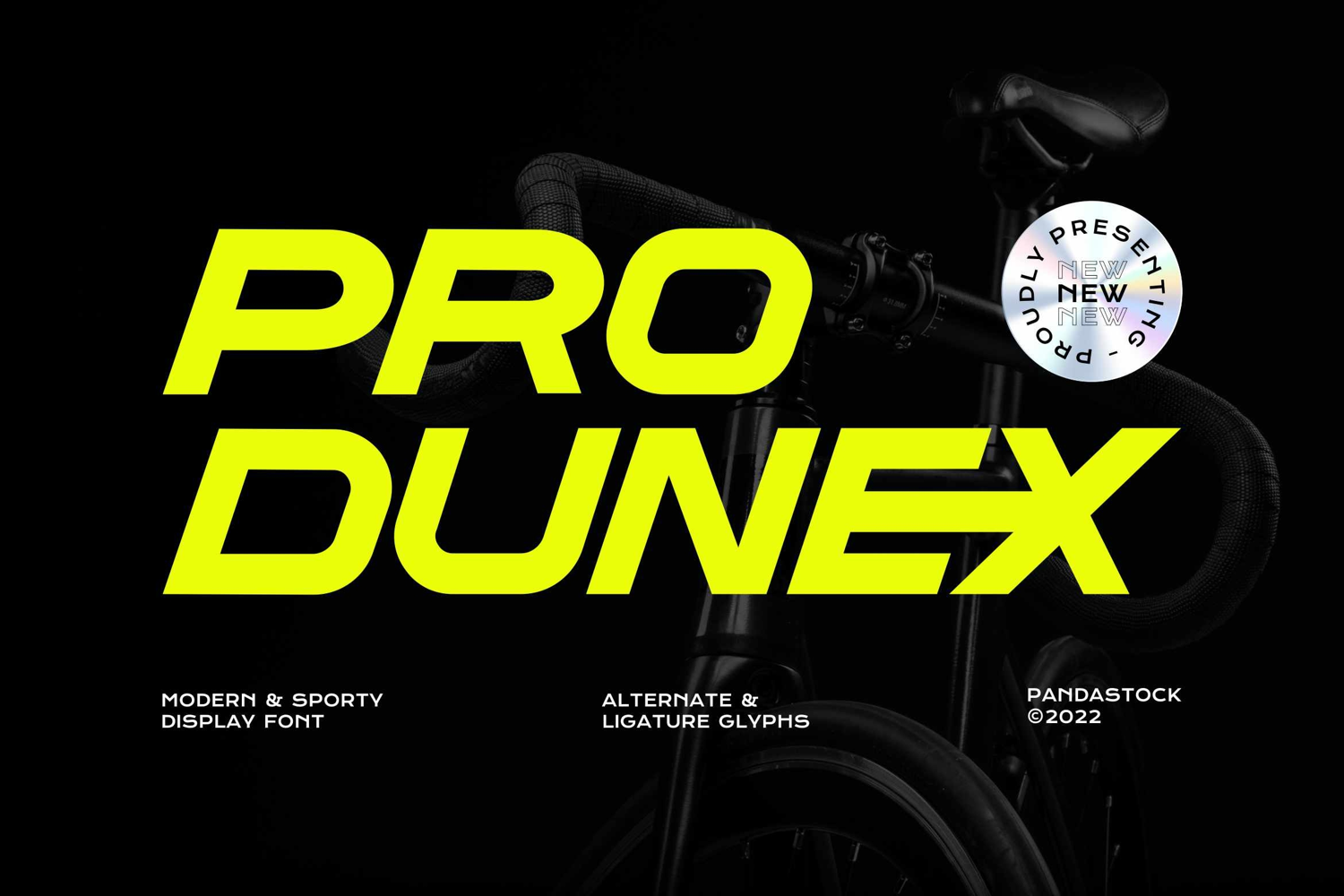
Pro Dunex - Sporty Display Font
Pro Dunex is a modern and sporty display typeface built for bold, energy branding. Its letterforms combine wide, athletic proportions with a forward slant that gives every word a sense of speed and motion, lend the characters a aerodynamic feel, equally at home on a racing jersey, an esports logo, a supplement label, or an automotive campaign.
The uppercase set anchors the family with strong, confident capitals, while the lowercase introduces distinctive angular cuts and futuristic detailing, making it ready for global sport, tech, and lifestyle projects.